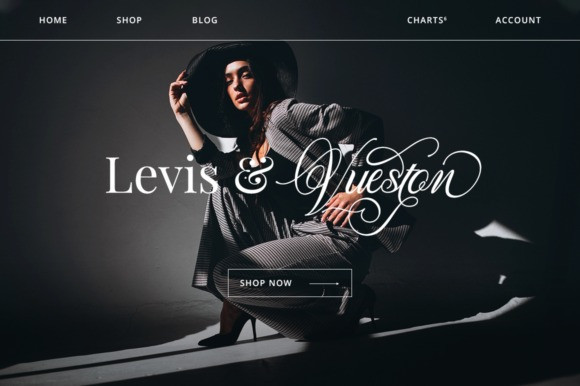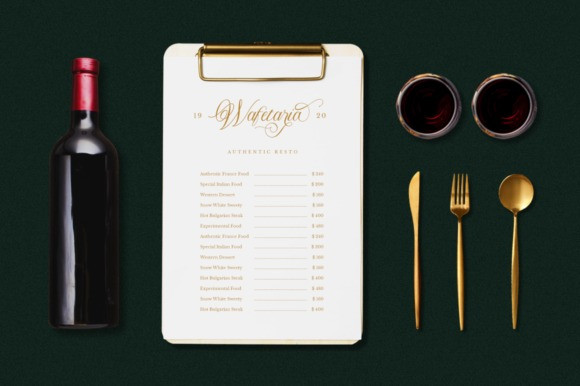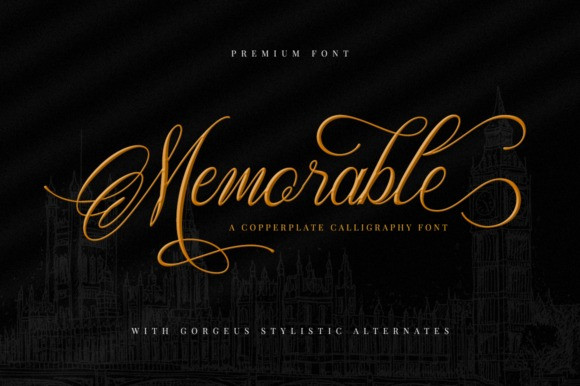
Memorable Font
Memorable Font is a lovely and delicate script font that exudes elegance and class. This font was particularly crafted for those who need a beautiful and refreshing look to their designs. Memorable is PUA encoded which means you can access all glyphs and swashes with ease!